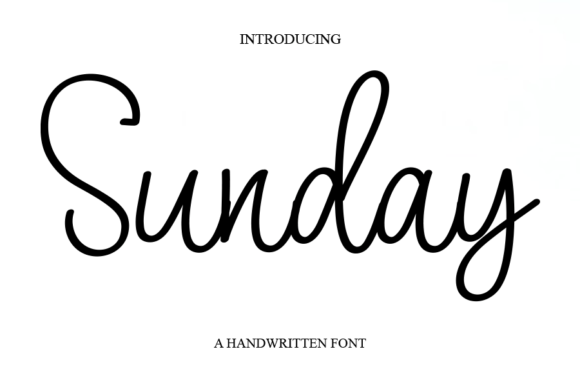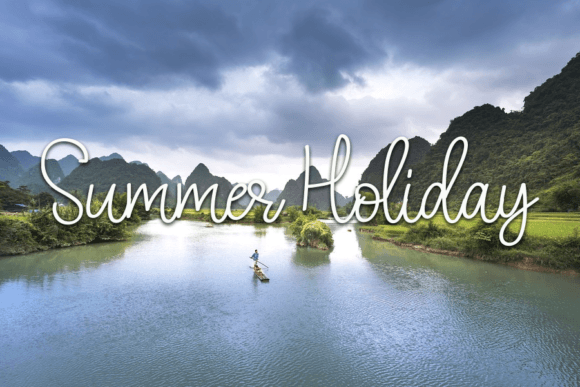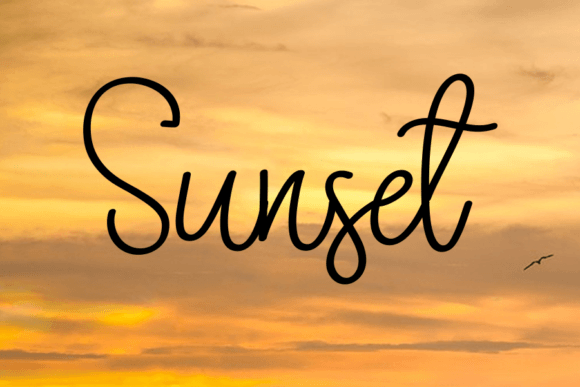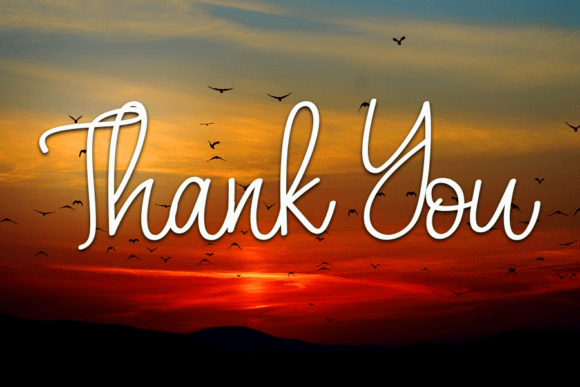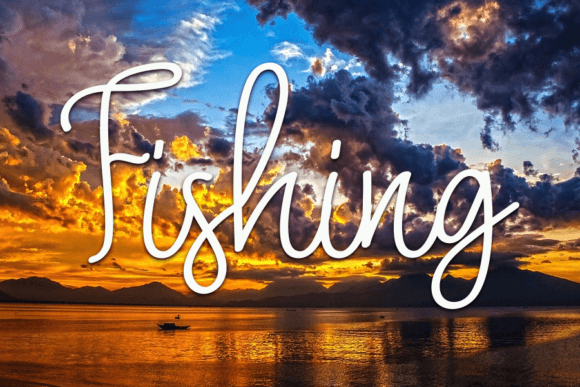
Sunday Font
About Sunday Font
Sunday Font is a fun handwritten script designed to add warmth and personality to your projects. With smooth strokes and a friendly look, this typeface is perfect for both personal and professional work. Because of its versatile design, Sunday Font fits seamlessly into crafts, invitations, digital designs, posters, and branding.
A Fun Handwritten Typeface with Personality
Handwritten fonts naturally bring authenticity, and Sunday Font enhances that charm with playful strokes. Its casual form makes designs approachable, while its neat structure ensures readability. Moreover, it balances creativity and clarity, which means it can adapt well to different project needs. As a result, this script is ideal for designers looking to combine fun and professionalism.
Perfect Typeface for Crafts and Greeting Cards
If you love creating crafts or designing stationery, Sunday Font is an excellent choice. For example, it can turn a birthday card into a lively and memorable keepsake. In addition, it works beautifully for wedding invitations, thank-you notes, and seasonal greetings. Because of its cheerful character, every project feels unique and heartfelt.
A Script Typeface for Logos and Branding
Businesses and creatives who want to convey friendliness in their branding can rely on Sunday Font. Logos, packaging, and labels gain charm and approachability with this script. Furthermore, on social media, SundayFont helps posts, banners, and ads stand out with energy and personality. Paired with minimalist sans serif fonts, it creates balance between fun and clarity.
Another strength of SundayFont is its adaptability across mediums. In print, it enhances posters, brochures, magazines, and merchandise. Digitally, it elevates blogs, websites, and presentations with creativity. Since it remains legible across both small and large sizes, it provides consistency for diverse design applications.